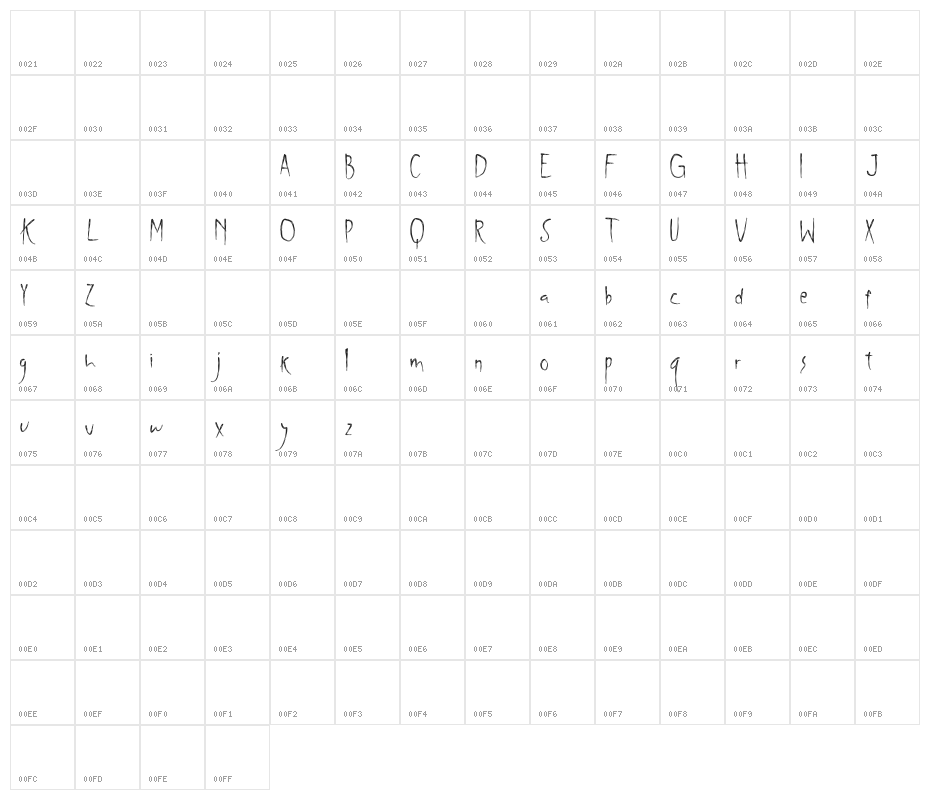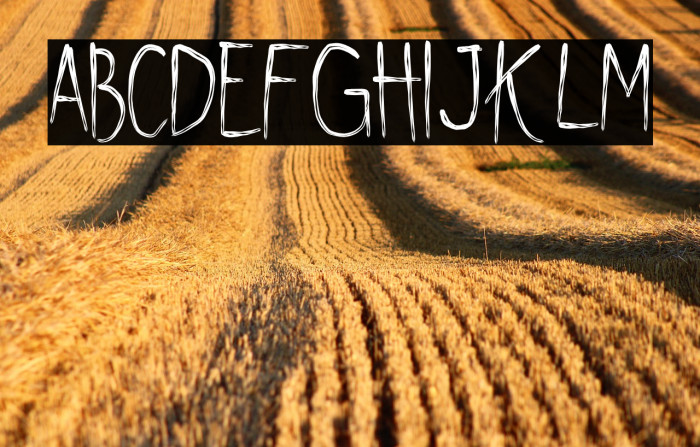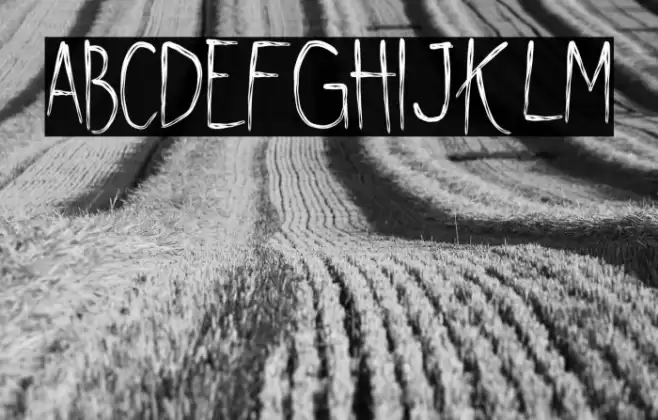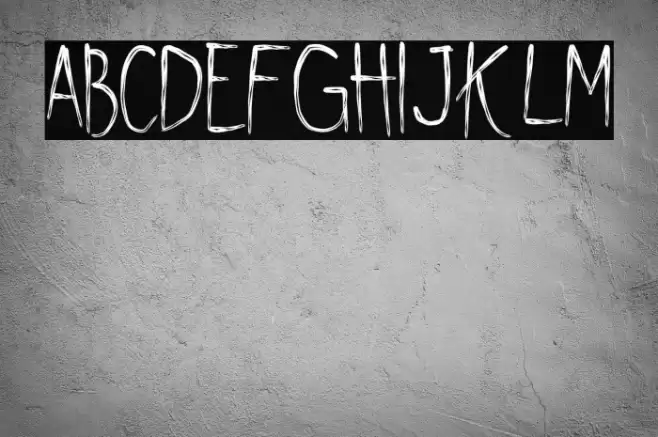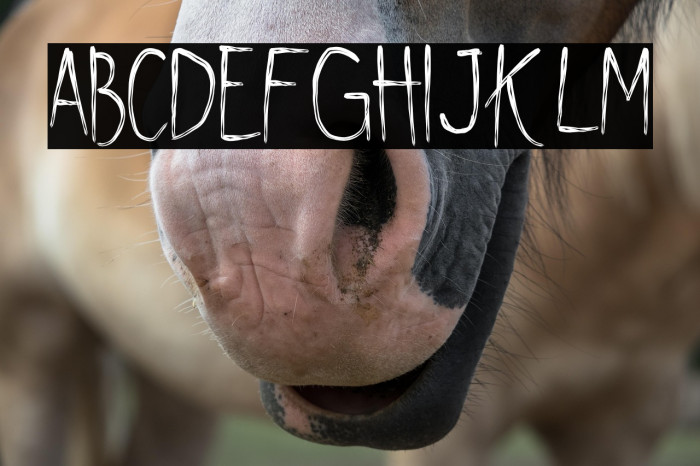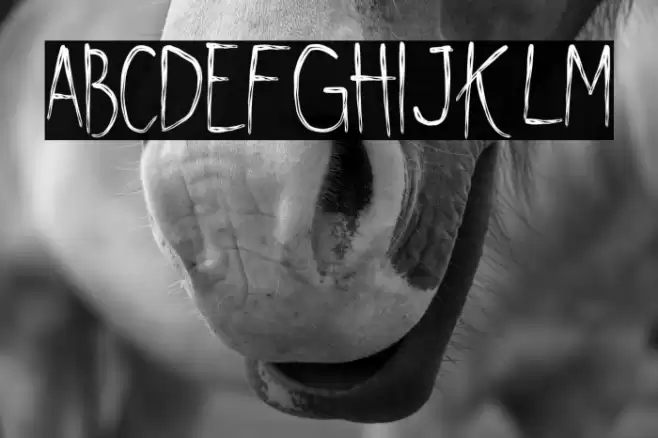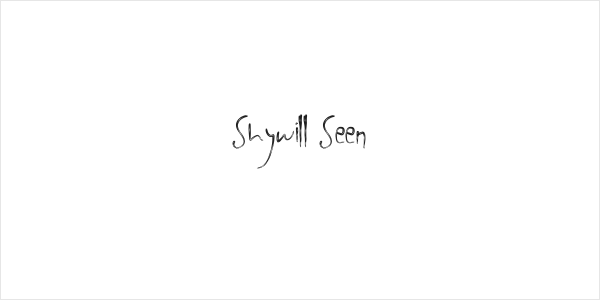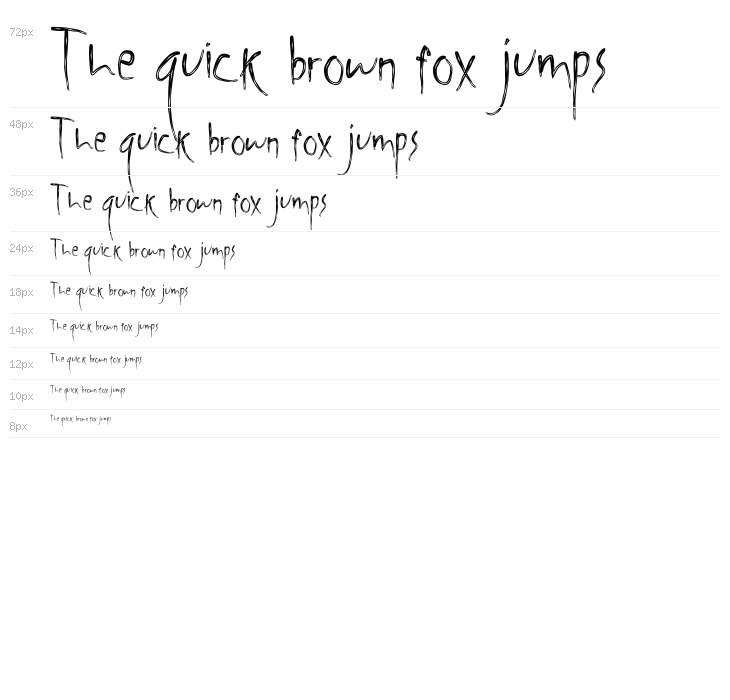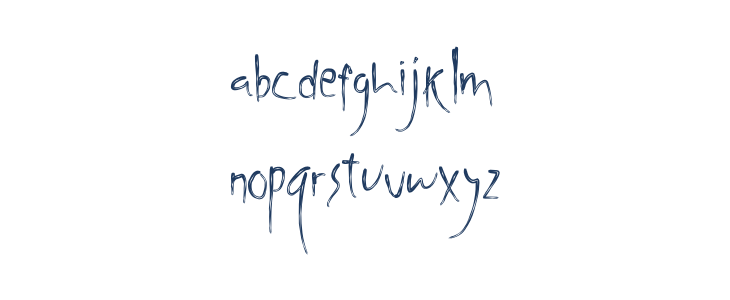
Shywill Seen Font
Shywill Seen Description
This font features a distinctive handwritten style with a casual, artistic flair. The letters are unevenly weighted, giving them a dynamic and expressive appearance. The strokes are varied, with some parts appearing thicker and others thinner, creating a sense of movement and spontaneity. The characters are slightly elongated, adding to the whimsical and free-spirited feel. This font captures a sense of creativity and individuality, making it ideal for projects that require a personal touch. The irregularity in the letterforms adds to its charm, making it stand out in a playful and engaging way.